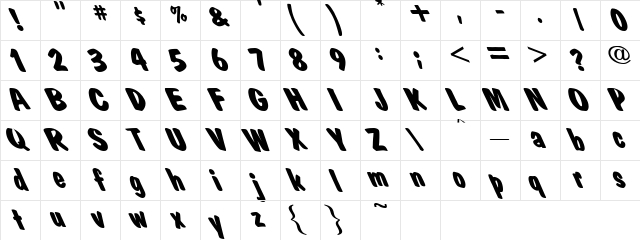
Mkt Bold Plain: Lefty Plain: Font Preview
Mkt Bold Plain: Lefty Plain:
Mkt Bold Plain: Lefty Plain: Font Details
Design Context for Mkt Bold Plain: Lefty Typeface
Mkt Bold Plain: Lefty takes a measured approach to typography — its balanced proportions and neutral character make it a reliable workhorse for both digital and print work. Its bold stroke weight gives it real presence on the page.